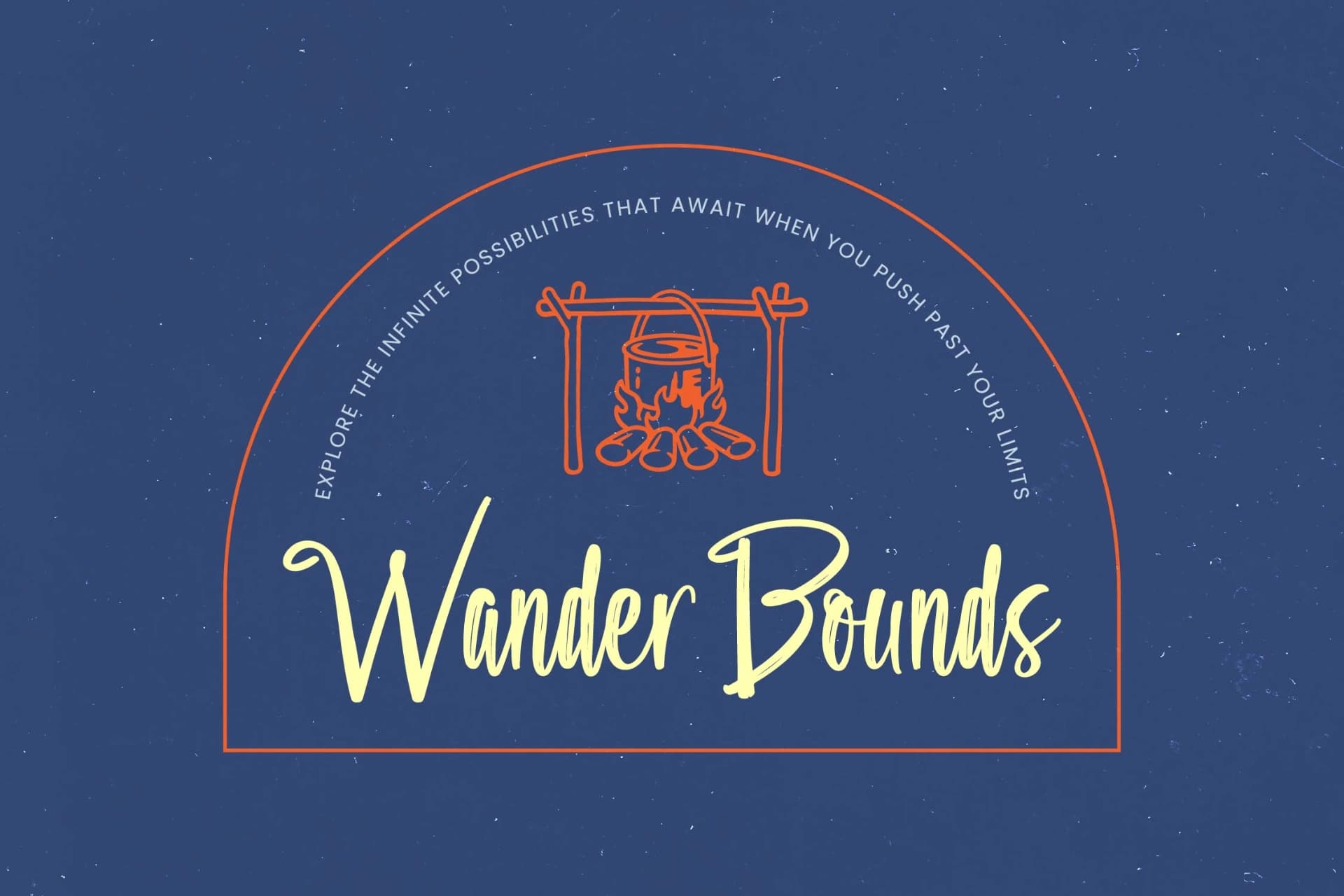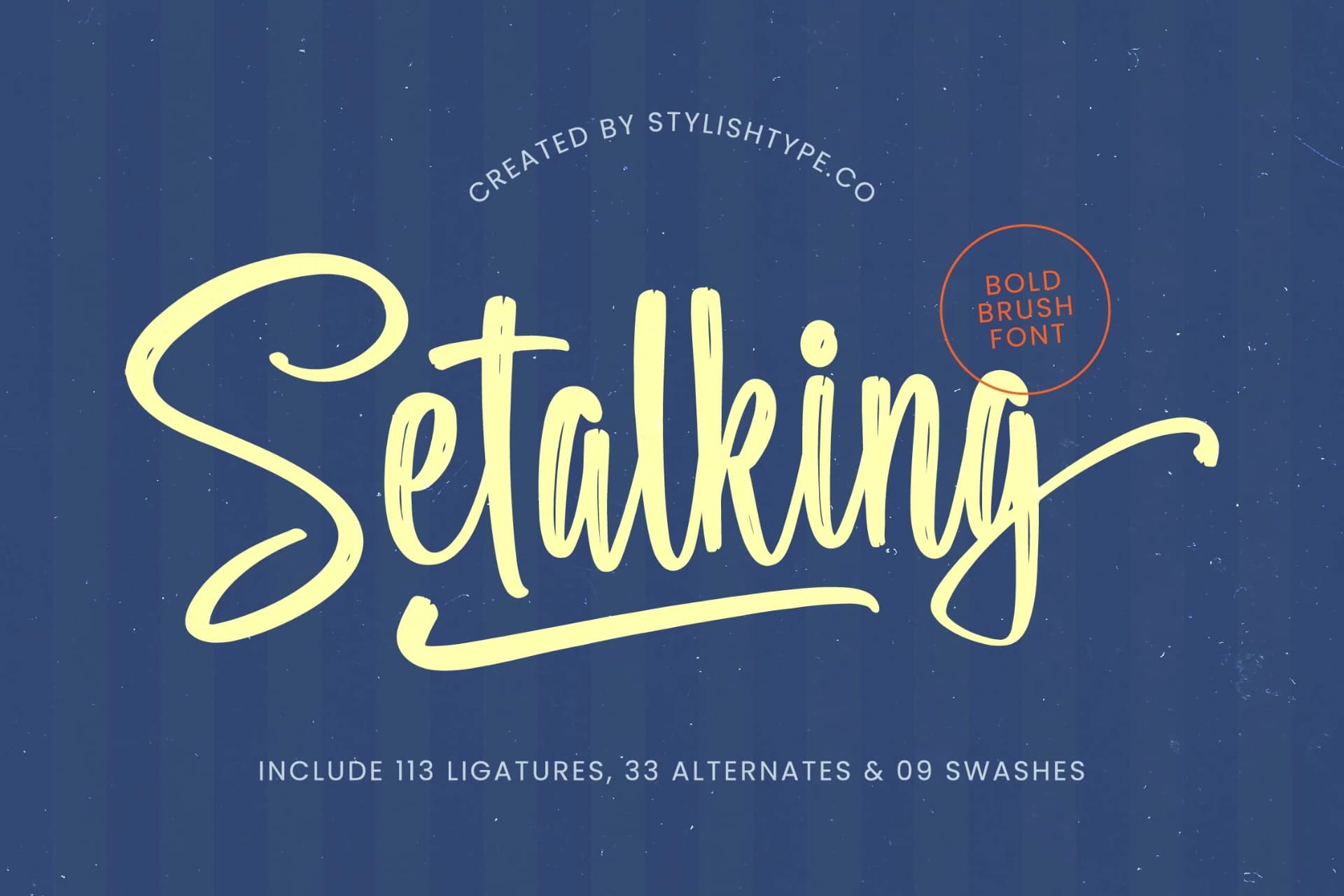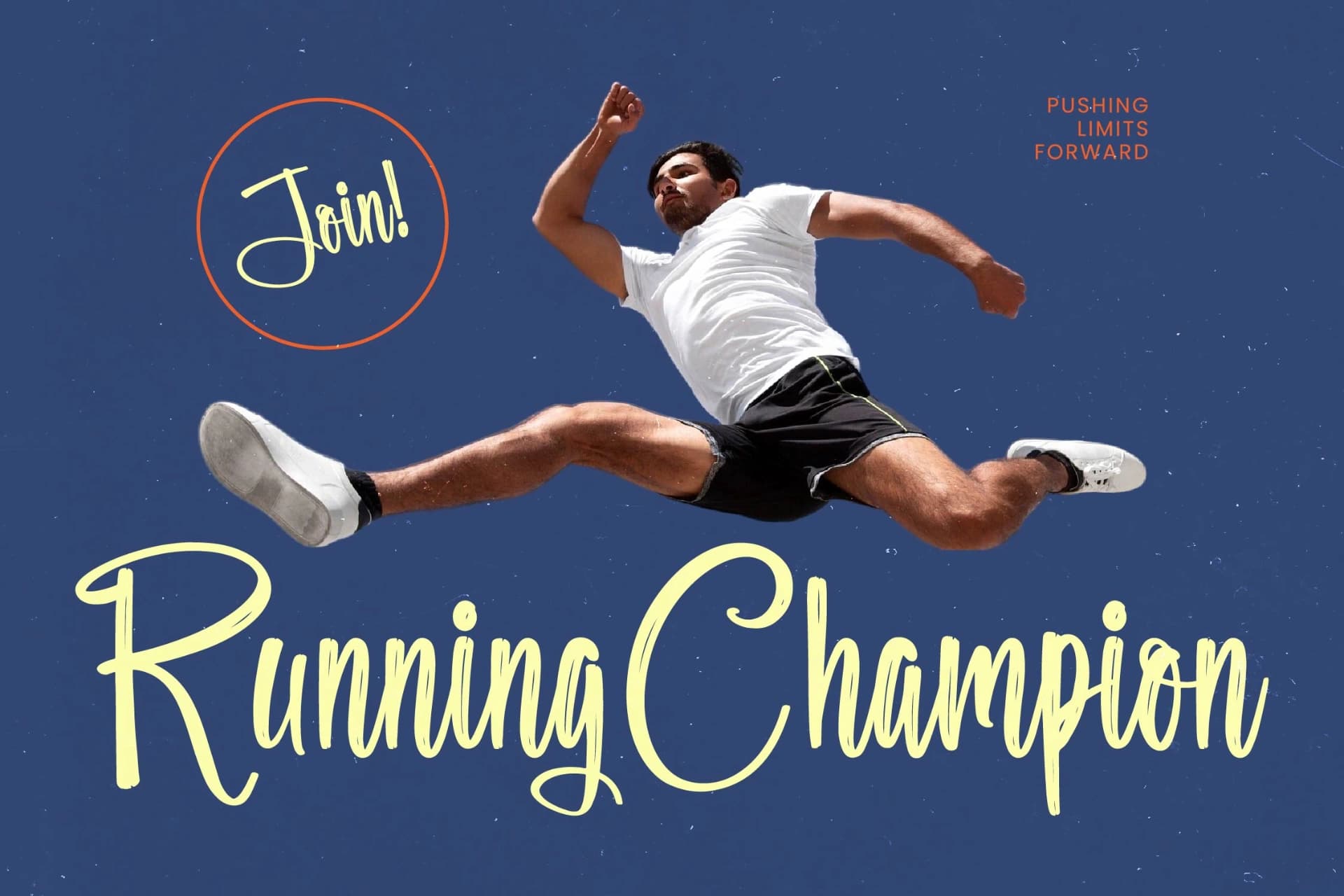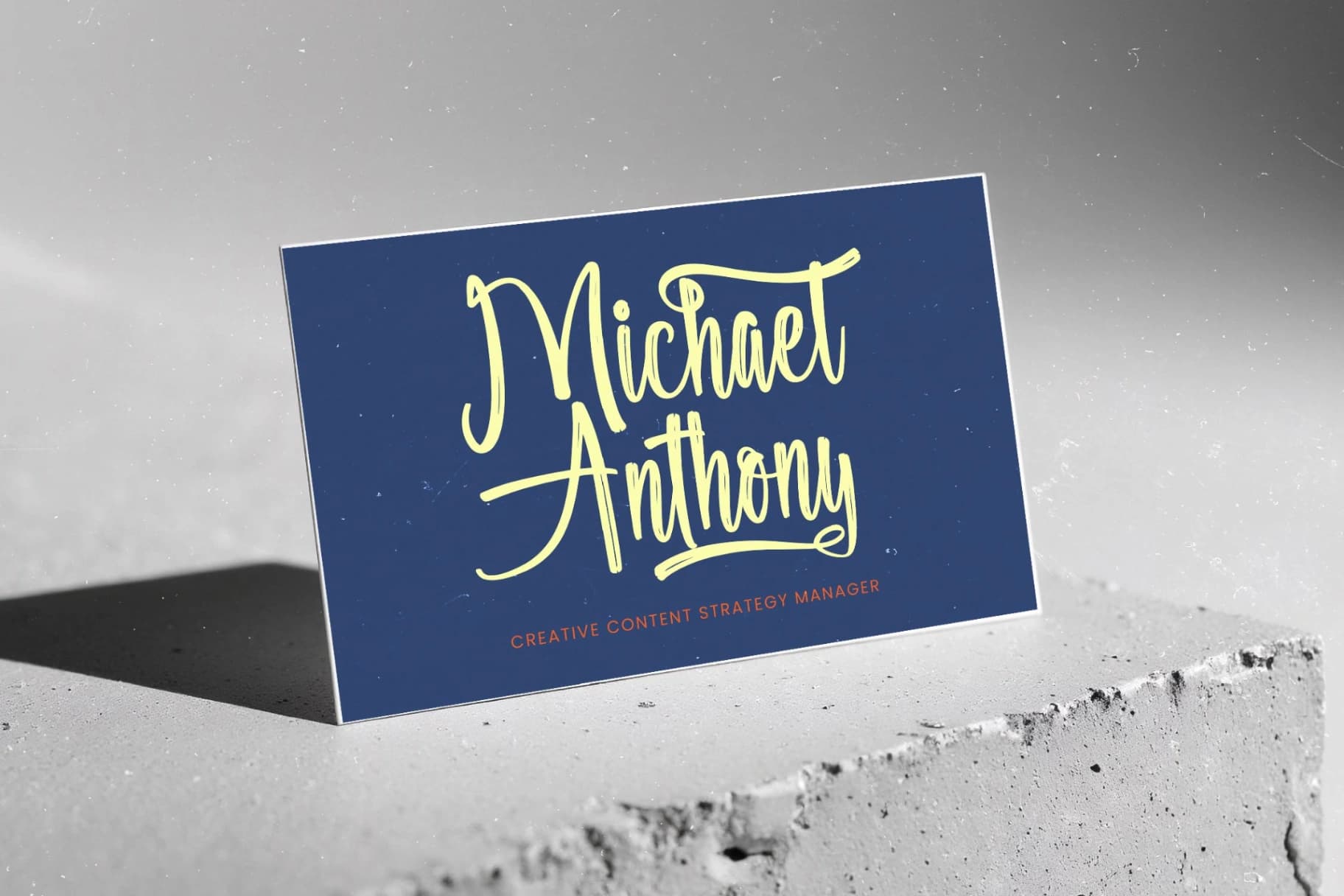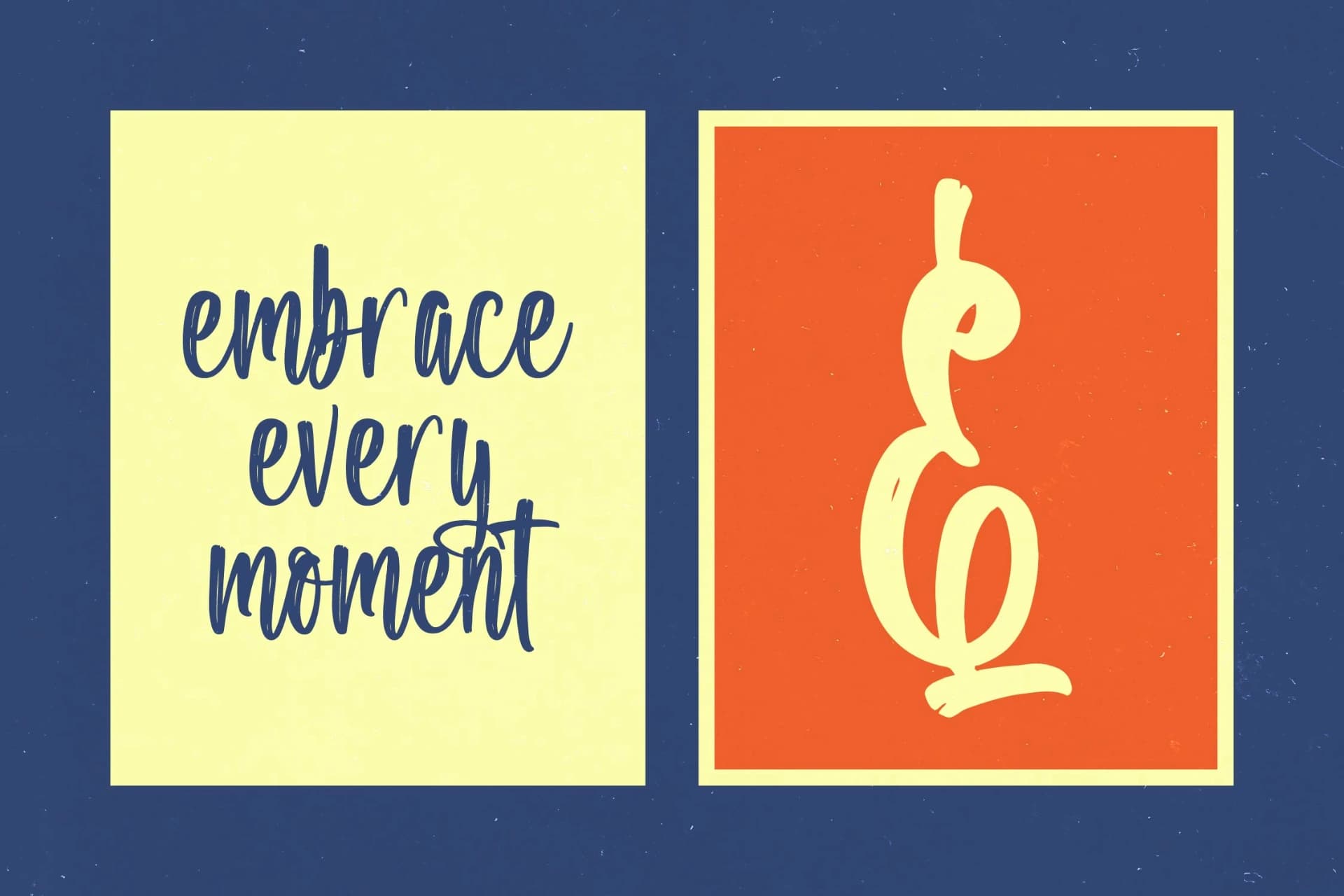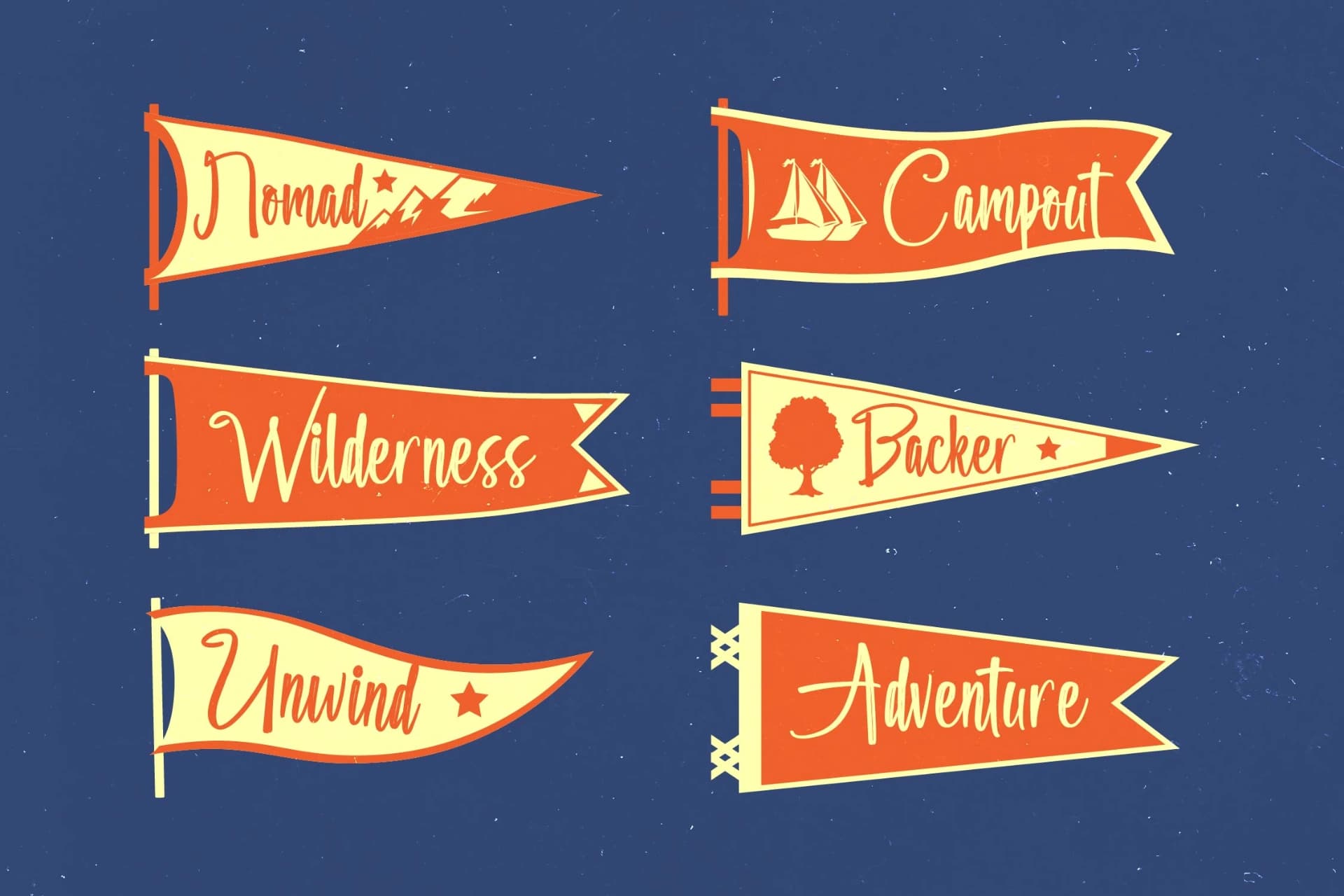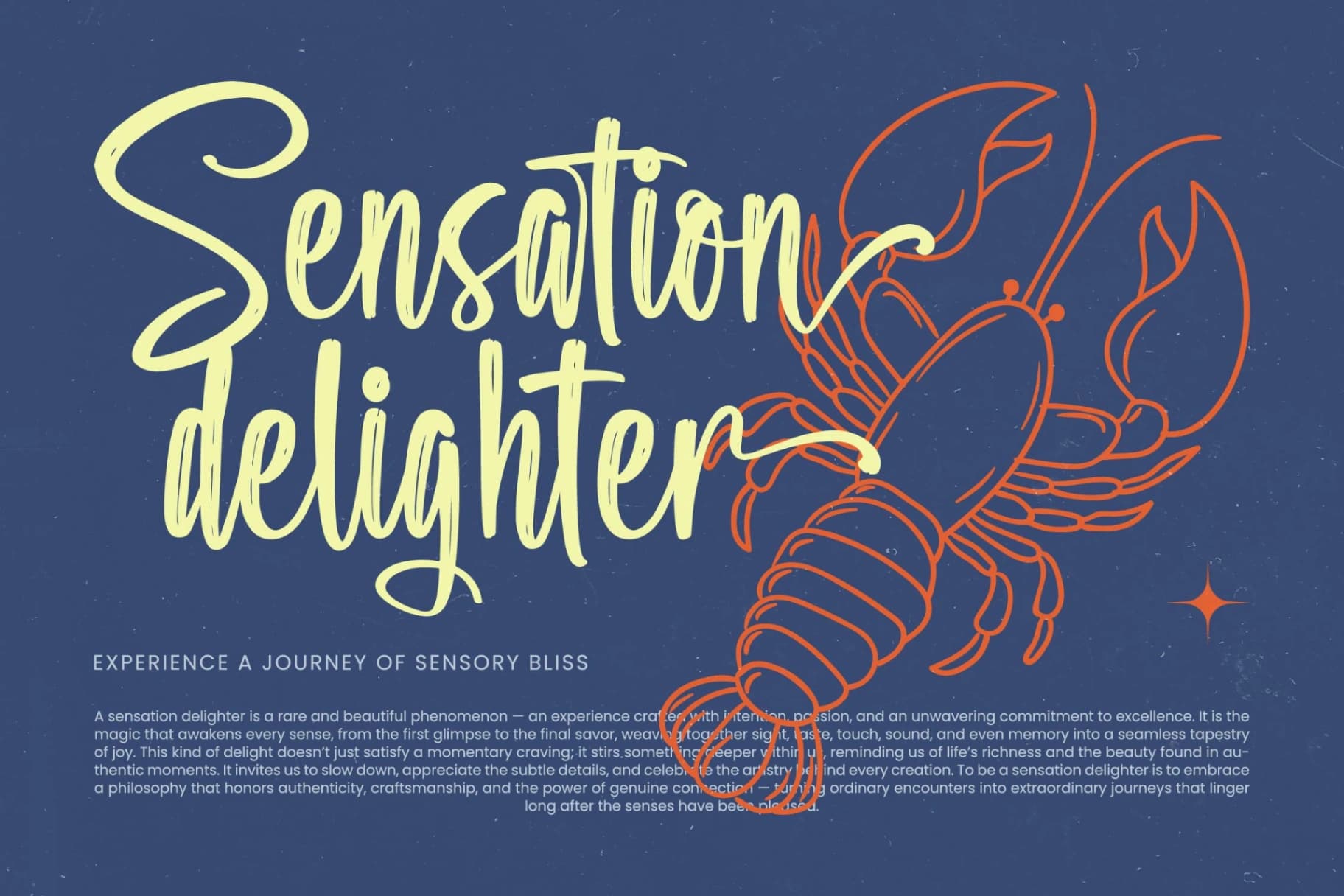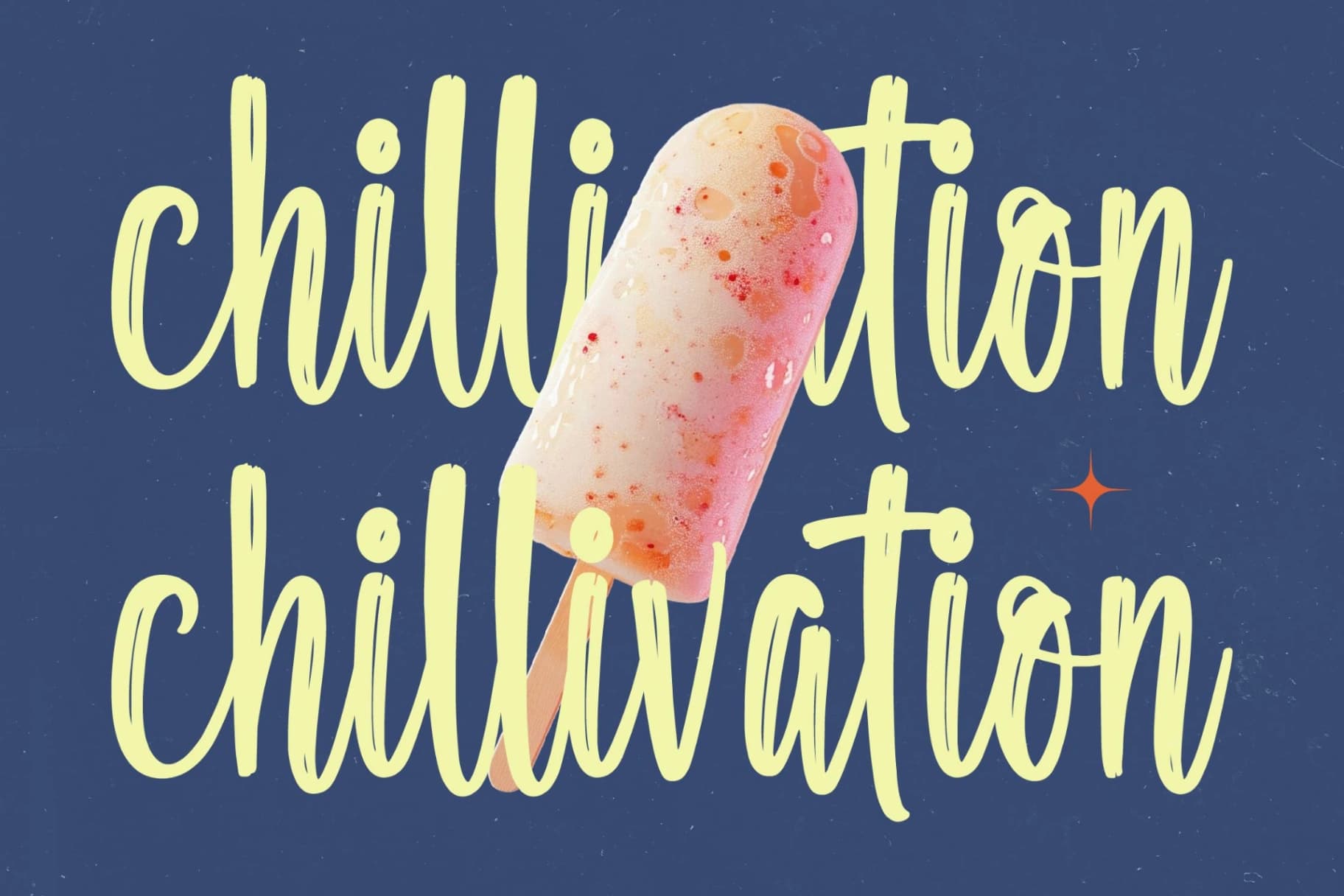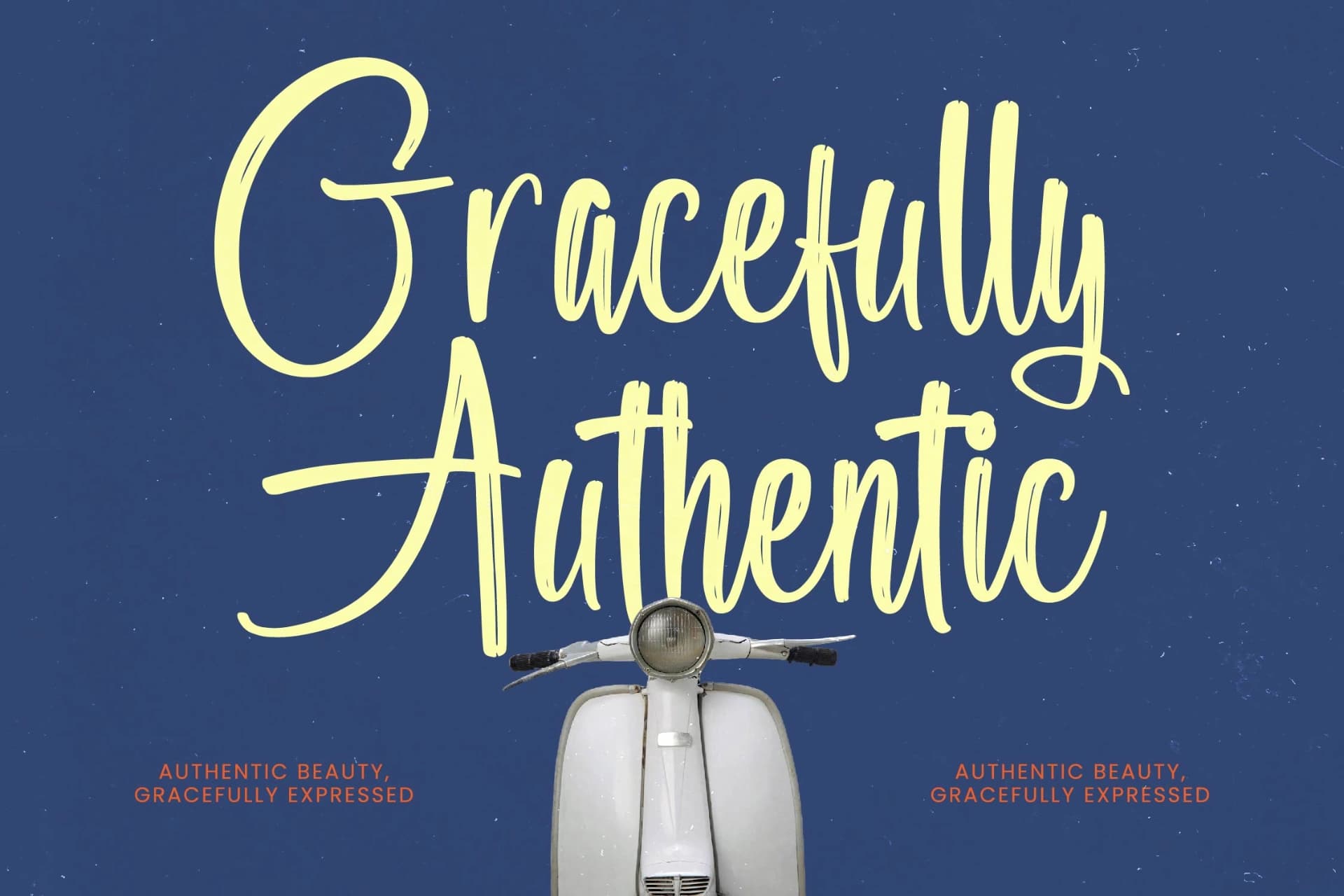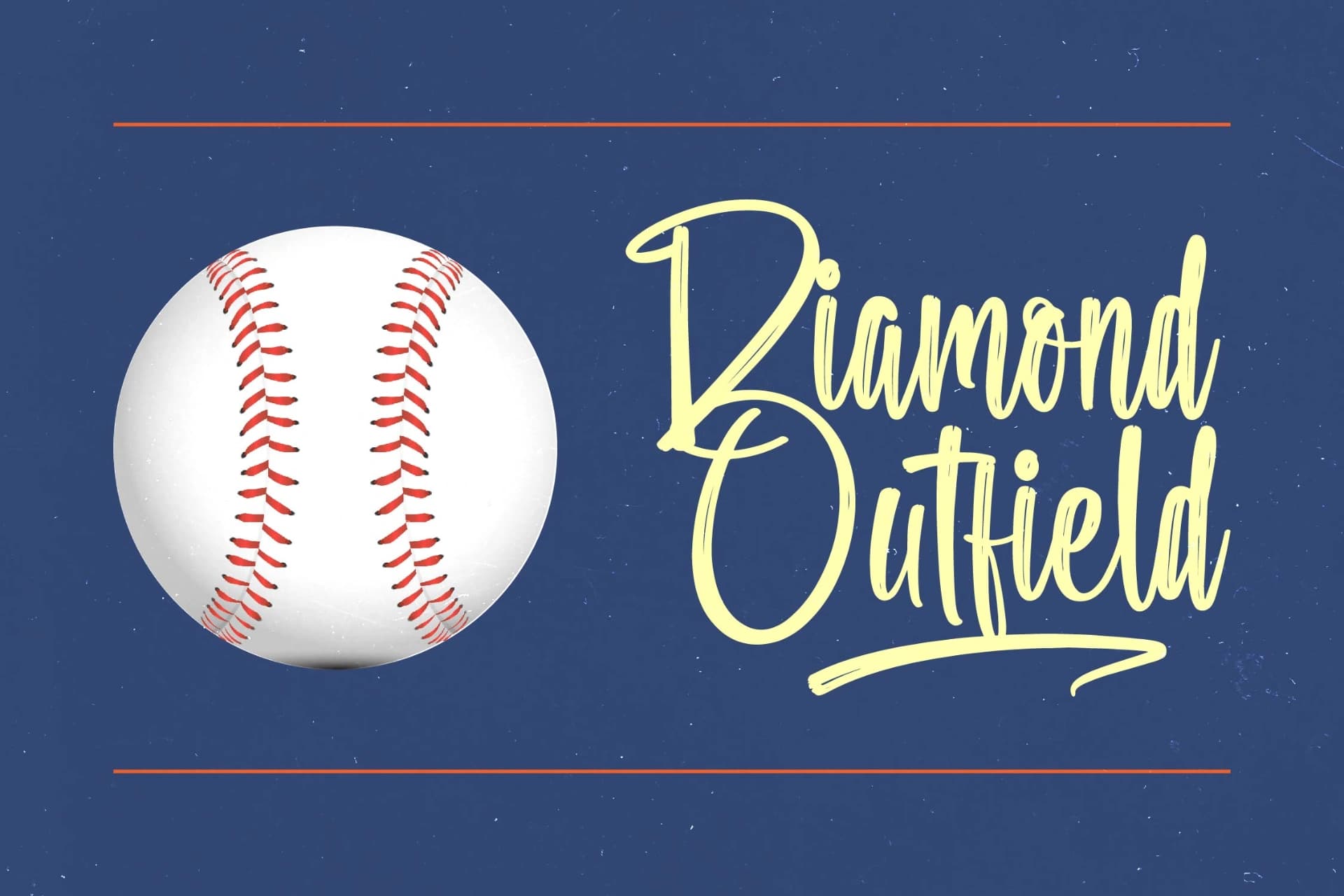
Setalking - Bold Brush Font
Capture attention with the vibrant, bold essence of a unique typeface. Font Setalking - Bold Brush Font Script masterfully blends raw energy with refined elegance, delivering an unmistakable visual punch. Its robust, flowing letterforms exude a confident, energetic personality, perfect for designers seeking a definitive statement. This bold brush font brings authentic, handcrafted charm, instantly elevating design value and emotional connection.
Unlock unparalleled creative possibilities with its rich array of stylistic enhancements. Font Setalking - Bold Brush Font Script is meticulously designed with 113 ligatures, 33 alternates, and 09 swashes, offering extensive options for true customization and authenticity. These features allow a deeply personalized aesthetic, ensuring every headline or logo possesses a unique, hand-lettered feel. Its dynamic flow ensures seamless readability while maintaining an expressive script.
Expand your design reach effortlessly across diverse linguistic landscapes. With its extensive multilingual support, Font Setalking - Bold Brush Font Script adapts seamlessly across global markets, making it incredibly versatile for international projects. This crucial feature ensures your brand message resonates universally, preserving the font's unique artistic integrity regardless of language. It positions projects for success in a connected world, offering a globally appealing, professional typeface solution.
Ideal for projects demanding bespoke artistry and modern flair, Font Setalking - Bold Brush Font Script is the ultimate choice. It's perfectly suited for luxury branding, packaging, editorial design, stylish event invitations, and engaging marketing materials. Elevate apparel design, posters, and social media graphics with this font's unmistakable presence. Add this powerful, expressive script to your design toolkit and craft truly memorable designs that leave a lasting impression.